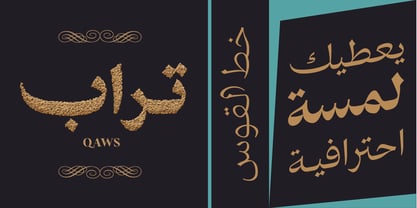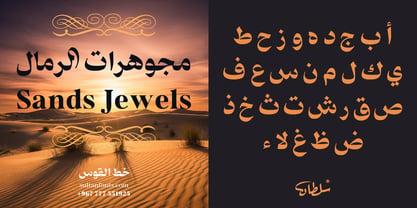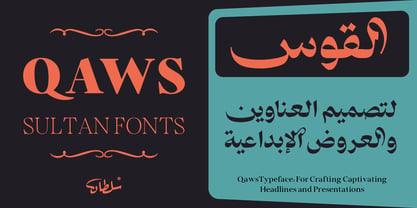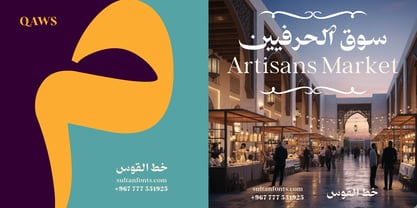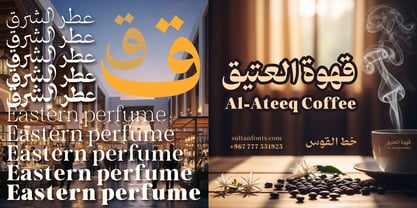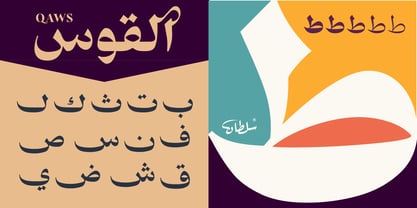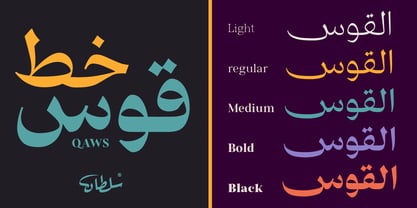
SF Qaws
by Sultan Fonts
The SF Qaws Font Family was designed by Sultan Maqtari and published by Sultan Fonts. SF Qaws contains 5 styles and family package options. More about this family
Qaws is a contemporary Arabic typeface that combines elegance and strength across 5 weights, from Light to Black. It supports Arabic, Latin, Persian, Urdu, and Kurdish, with advanced typographic features for smooth ligatures, contextual alternates, and full diacritic support. Ideal for branding, striking headlines, editorial design, and both print and digital media.
Designers: Sultan Maqtari
Foundry: Sultan Fonts